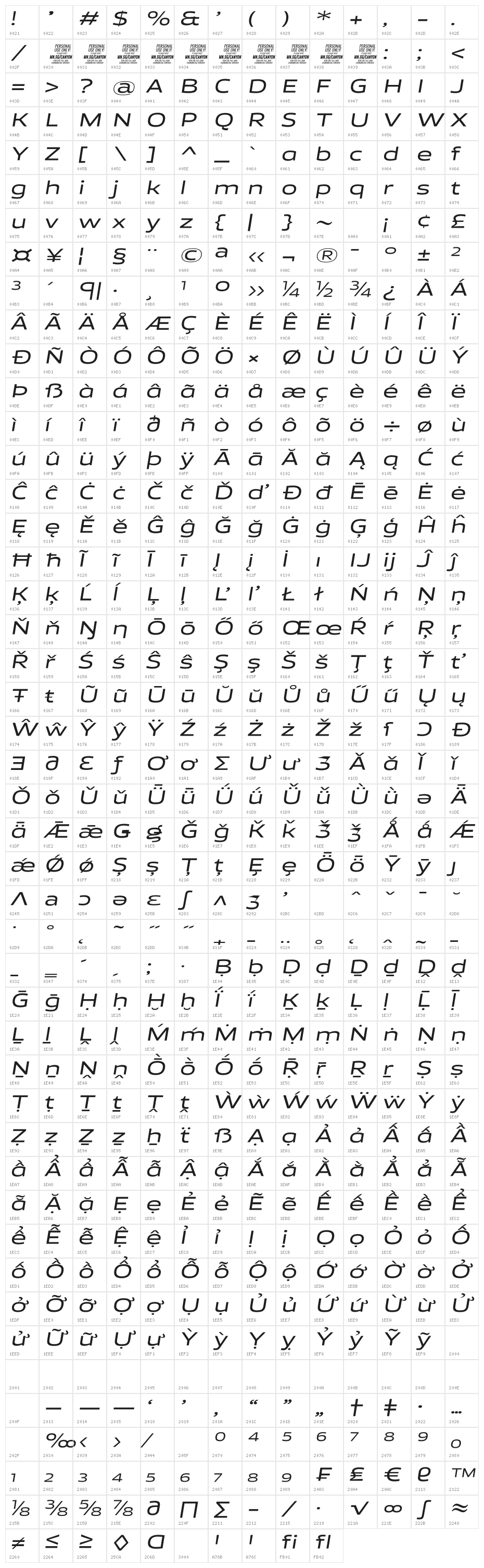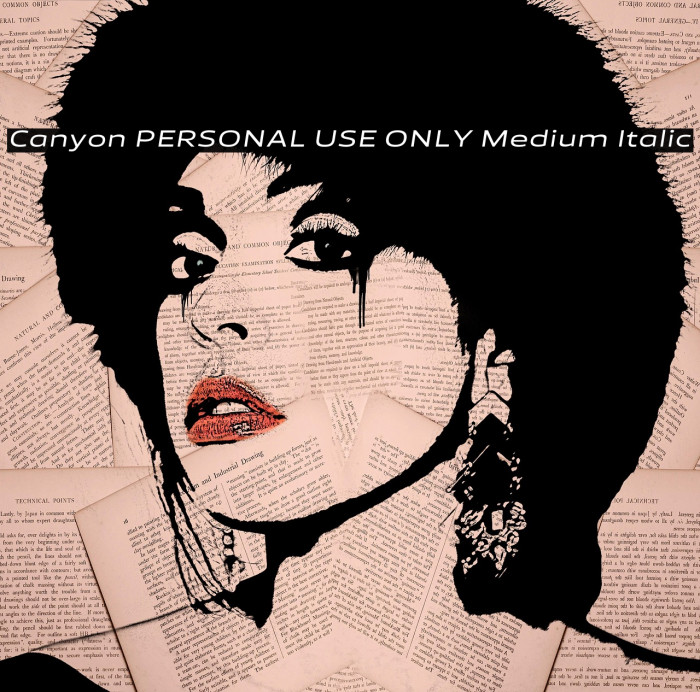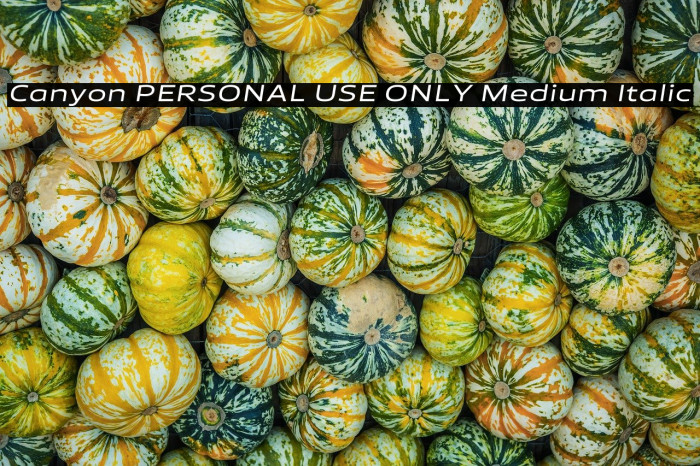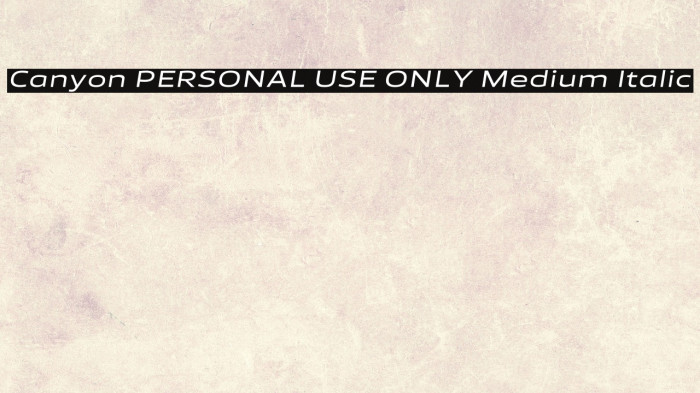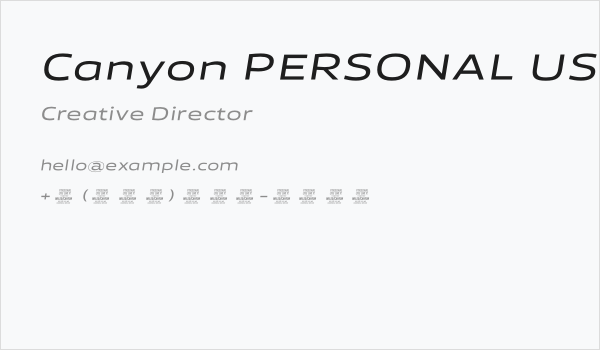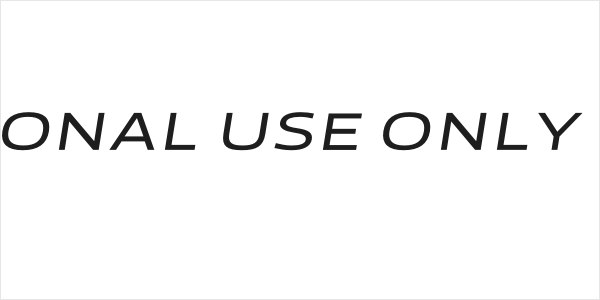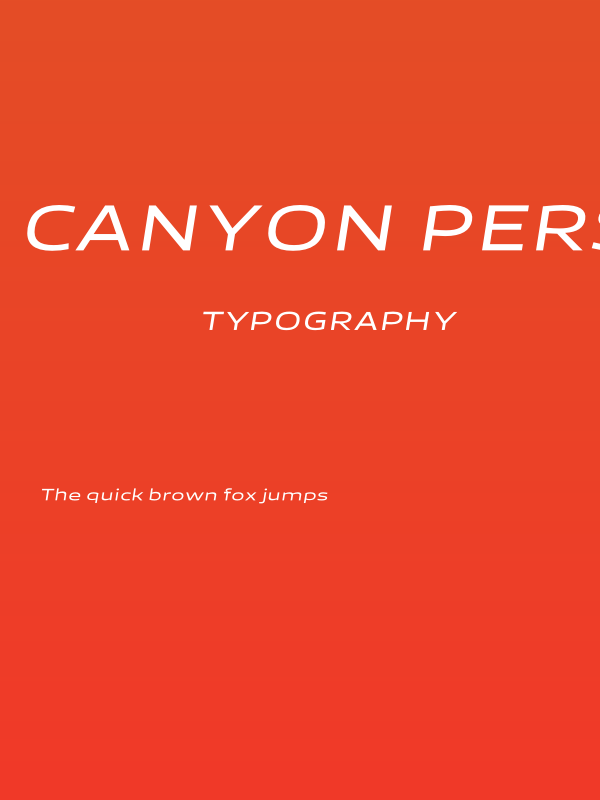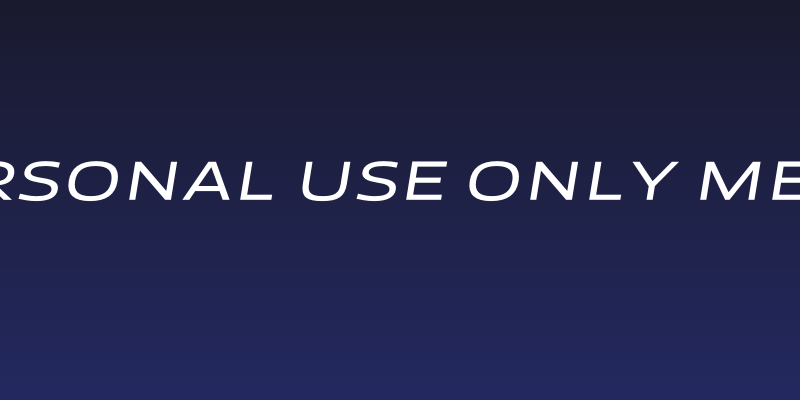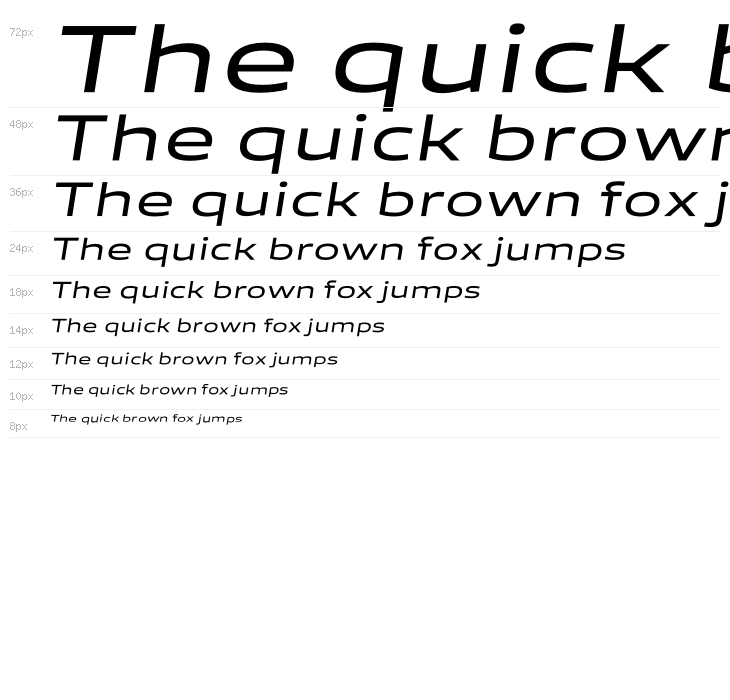
Canyon PERSONAL USE ONLY Medium Italic Font
Canyon PERSONAL USE ONLY Medium Italic Description
This font features a sleek, modern design with a slight italic slant, giving it a dynamic and forward-moving appearance. The characters are well-proportioned with a consistent medium weight, making it versatile for various design applications. The uppercase and lowercase letters maintain a harmonious balance, while the numerals and special characters are crafted to complement the overall aesthetic. The font's clean lines and subtle curves provide a sense of elegance and professionalism, making it suitable for both digital and print media.